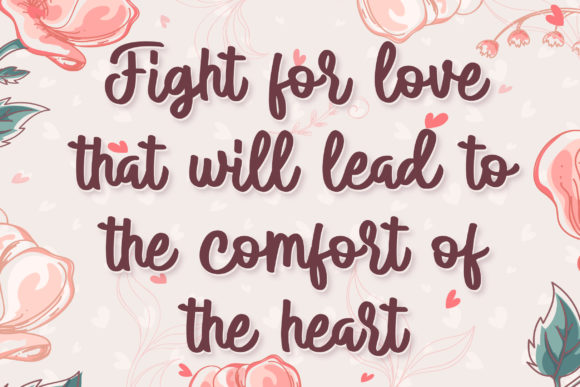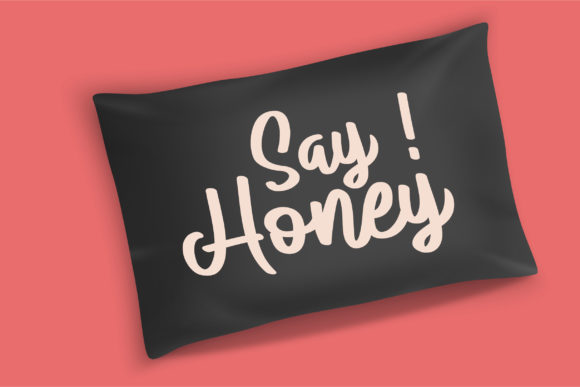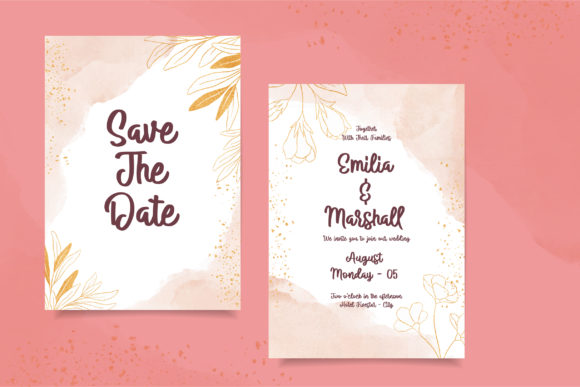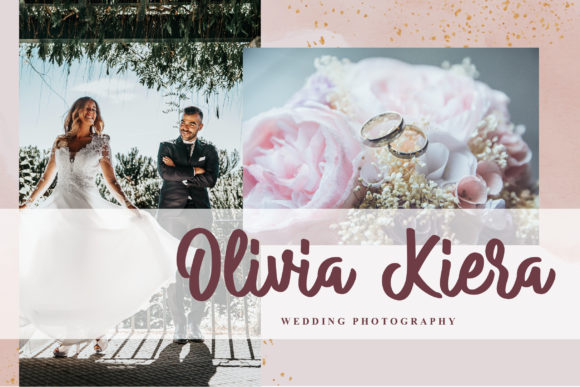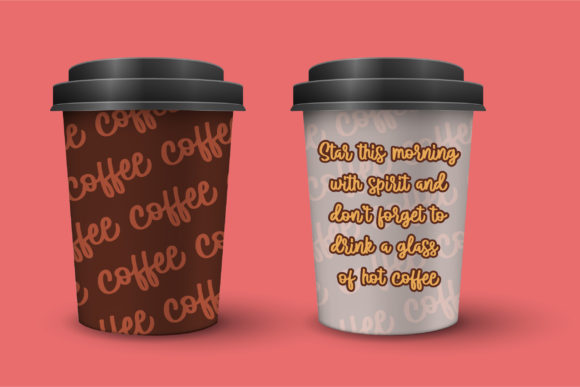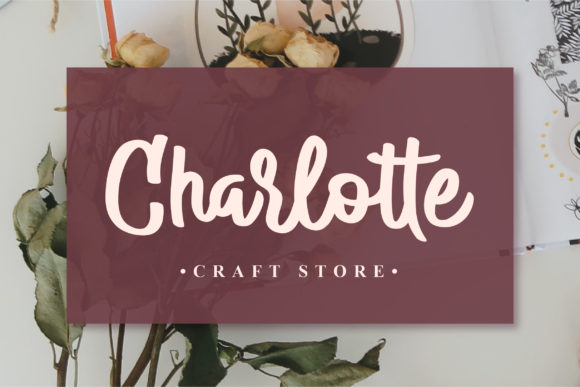
The Audrey Watson Font: A Timeless, Handwritten Masterpiece
I’ll never forget the design project that led me to discover the Audrey Watson font. I was working on a branding project for a luxury wedding planner, and I needed a font that exuded elegance, sophistication, and a touch of whimsy. After hours of searching, I stumbled upon Audrey Watson, and it was love at first sight! ✨ In this article, I’ll share my experience with this beautiful font, its features, and how to make the most of it in your designs.
- ✨ Elegant, flowing script with a timeless feel
- 💫 Beautifully crafted with attention to detail
- 🎨 Versatile and suitable for various design projects, from wedding invitations to branding and packaging
While Audrey Watson is an exceptional font, there are a few things to keep in mind: 🤔
- ⚠️ Some characters, like the uppercase letters, can be a bit ornate and may not work well in all design contexts.
- ⚠️ As with many script fonts, it may not be the best choice for body text or long paragraphs.
A Practical Guide: Using Audrey Watson in Your Designs
Audrey Watson font comes with a range of OpenType features and glyphs that can enhance your designs. Here are a few tips on how to access and use them:
The Designer Inspiration Behind Audrey Watson
Audrey Watson was designed with the intention of creating a timeless, elegant script font that would evoke the sophistication of classic calligraphy. The designer aimed to craft a font that would be versatile, legible, and beautiful, with a unique character that would set it apart from other script fonts.
Q: What is the Audrey Watson font best suited for?
A: Audrey Watson is perfect for designs that require an elegant, sophisticated feel, such as wedding invitations, luxury branding, packaging, and editorial design.
Q: Is Audrey Watson a difficult font to read?
A: No, Audrey Watson is highly legible, even at smaller font sizes. However, as with any script font, it may not be the best choice for body text or long paragraphs.